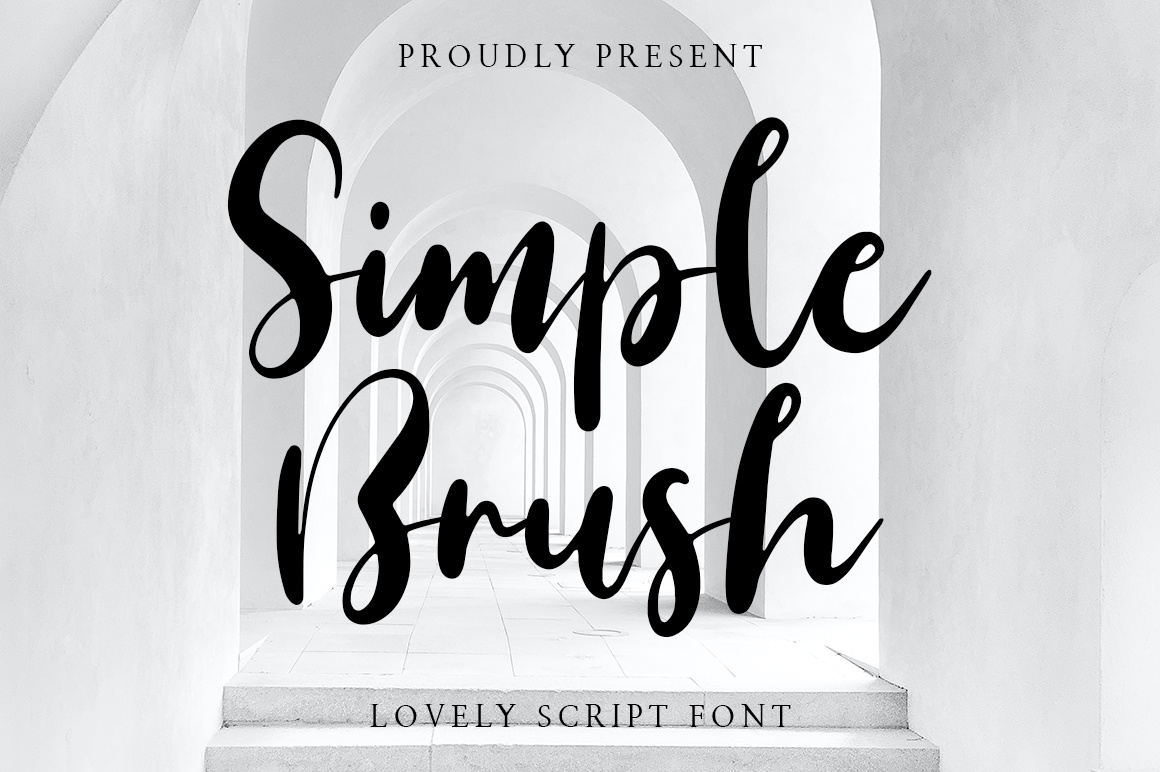
Free Simple Brush Script Font
Simple Brush is a modern brush calligraphy font with handwritten, sophisticated flows. Simple Brush perfect for logos, wedding stationery, cards, gift designs, photography, watermark, product packaging and handwritten quotes. This font also includes ligature, full set of uppercase and lowercase letters, multilingual symbols, numerals and punctuation.